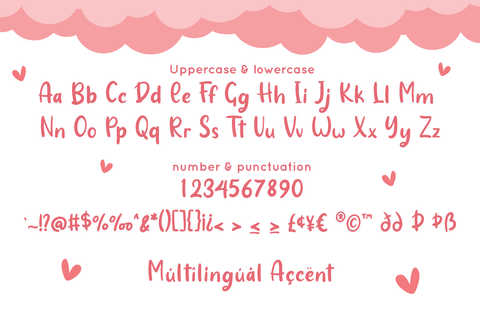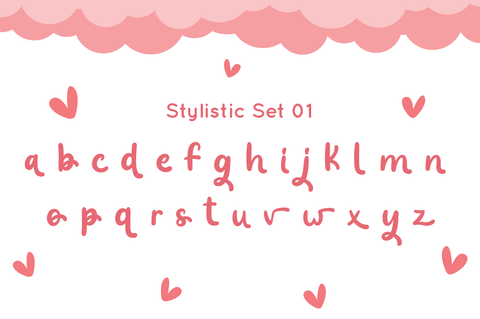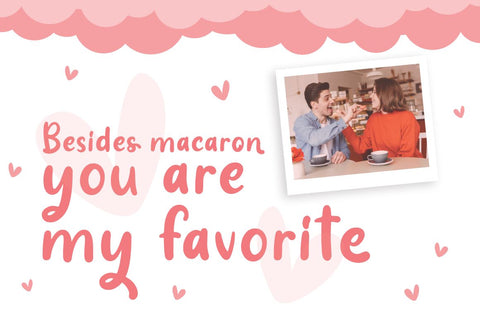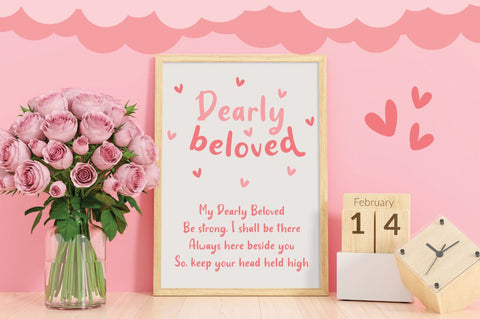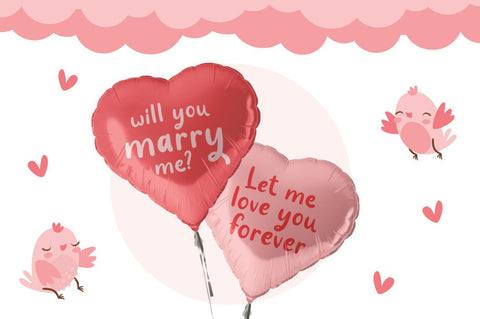
Hearty Chintya - Layered Crafty Font
Hearty Chintya is a Lovely Layered Crafty font with stylistic set.
Combine Hearty Chintya with display & outline version to get amazing 3D letterform!
Fall in love with its incredibly versatile style and use it to create spectacular designs!
Hearty Chintya is perfect for branding, logo, invitation, quotes, apparel design, product packaging, merchandise,
game titles, cute style design, Book/Cover Title and more.
- Stylistic Set character